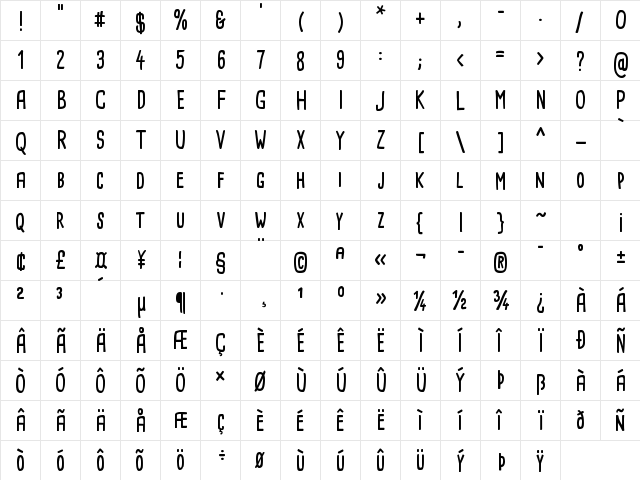
Cardenio Modern Bold
| Designer | Nils Cordes |
Design Context for Cardenio Modern Typeface
Cardenio Modern takes a measured approach to typography — its balanced proportions and neutral character make it a reliable workhorse for both digital and print work. Its bold stroke weight gives it real presence on the page.